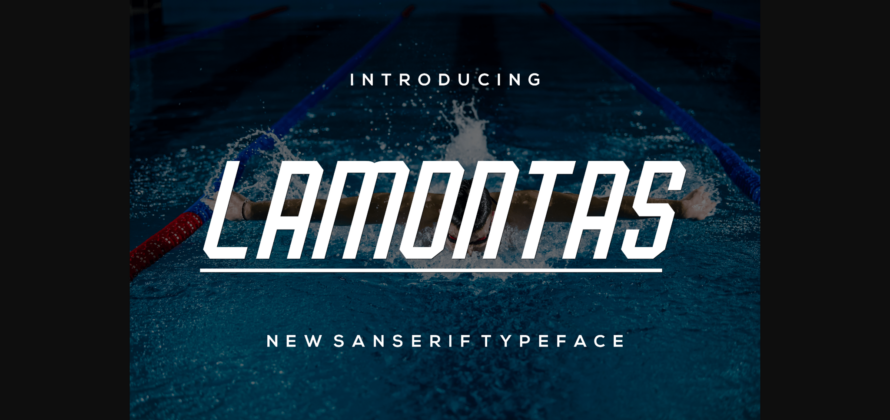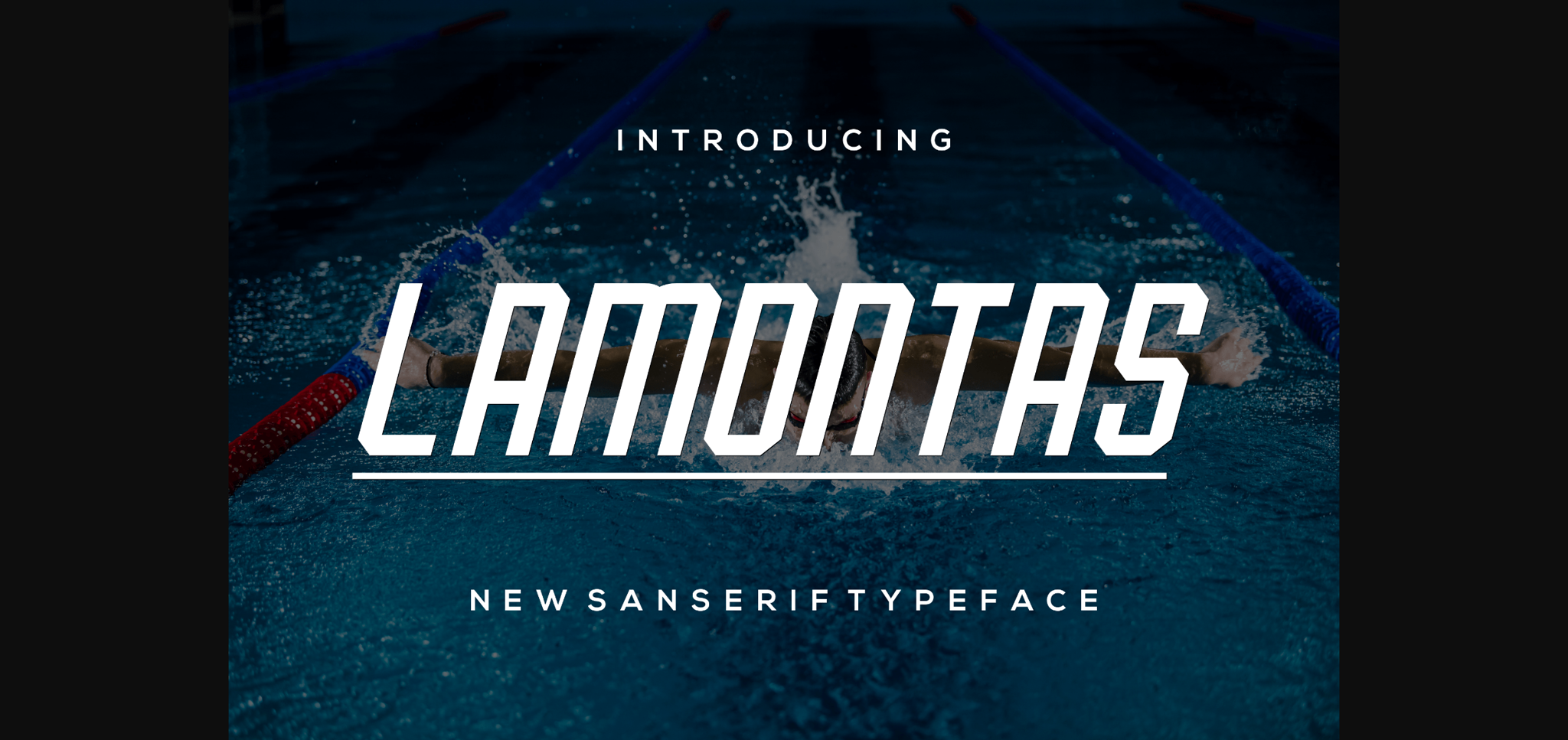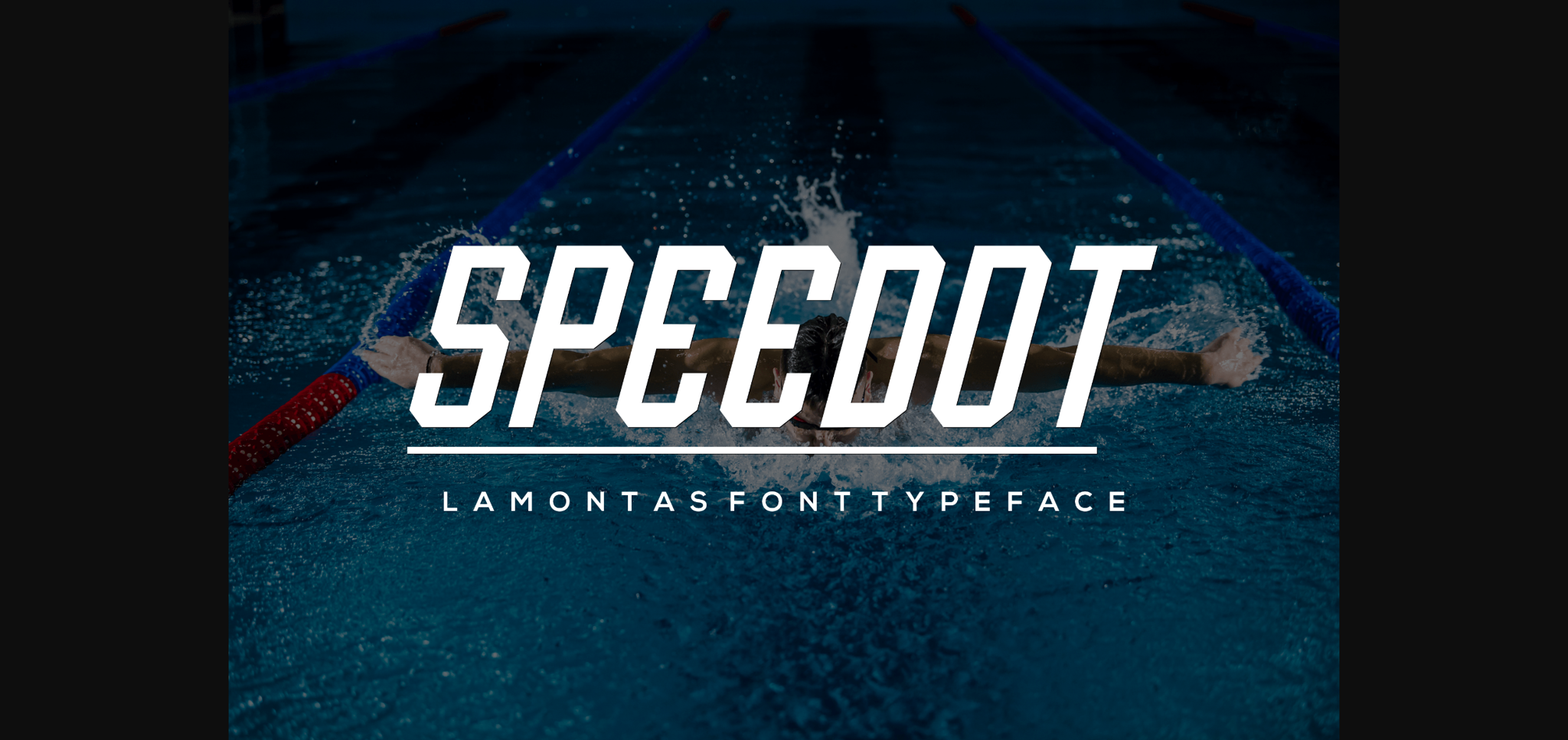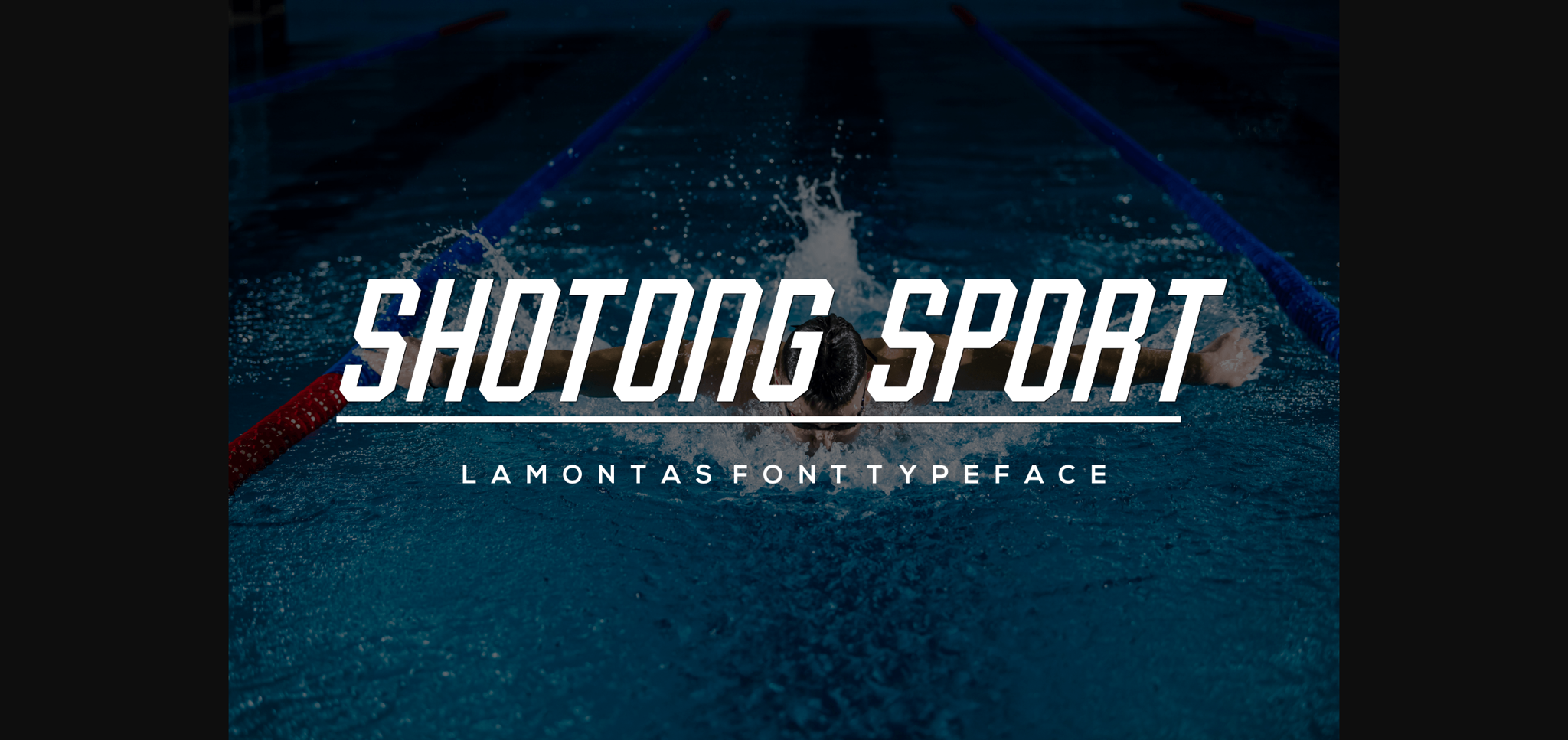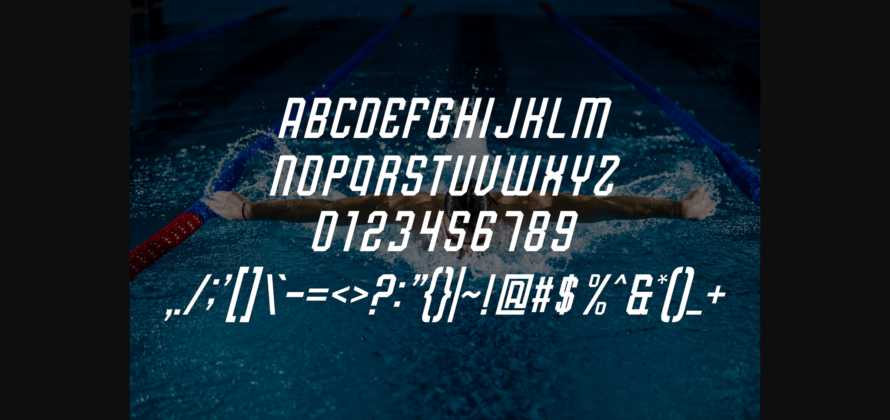
Lamontas Font
About Lamontas Font
Lamontas is a sans serif with a charming touch of style. Sporty and modern, this typeface is sure to take your design to the next level!